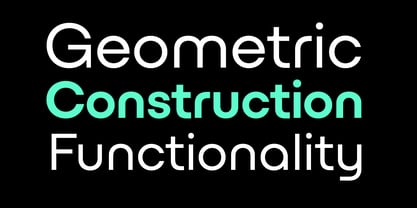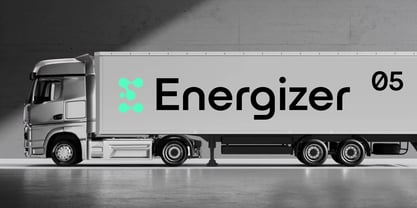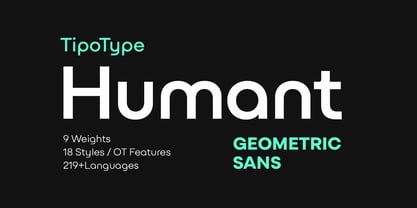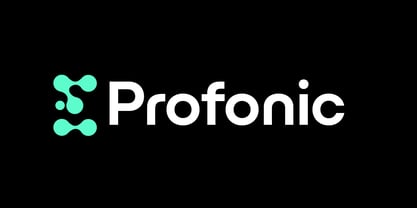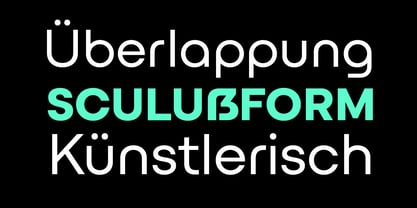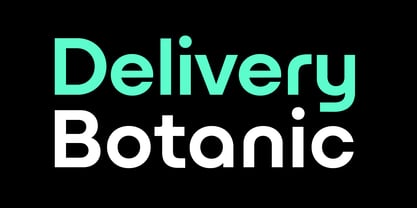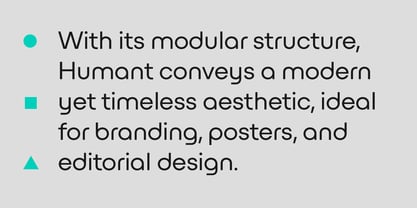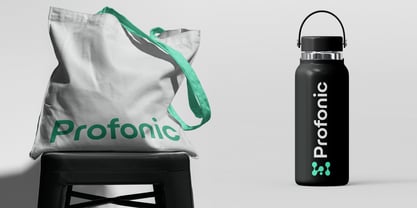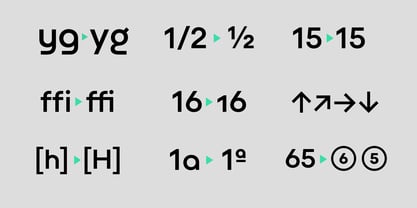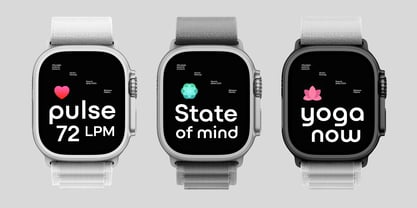
Humant
by TipoType
The Humant Font Family was designed by Tipotype Team and published by TipoType. Humant contains 18 styles and family package options. More about this family
Humant is a geometric typeface inspired by the iconic Bauhaus design movement. It features clean, minimalist lines and circular shapes, emphasizing balance and symmetry. With its modular structure, Humant conveys a modern yet timeless aesthetic, making it ideal for branding, posters, and editorial design. The typeface combines functionality and art, evoking the Bauhaus principle of merging art and technology.
Designers: Tipotype Team
Foundry: TipoType